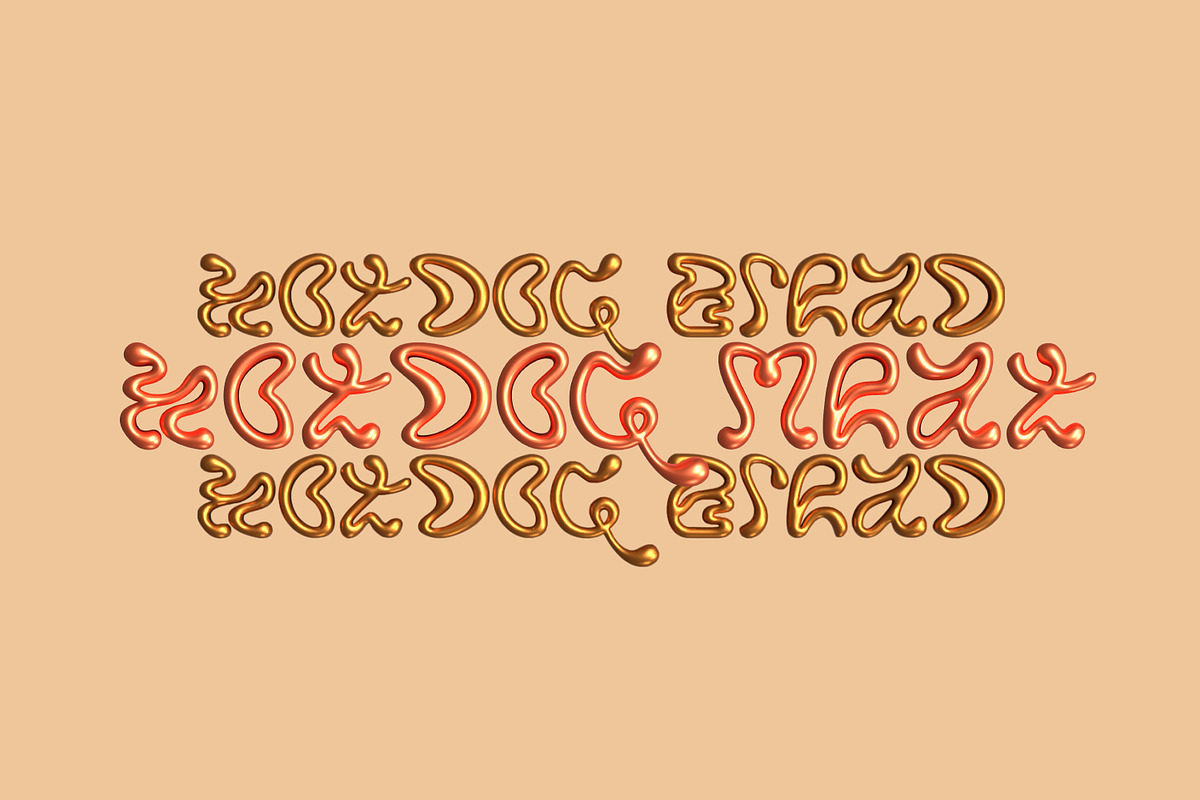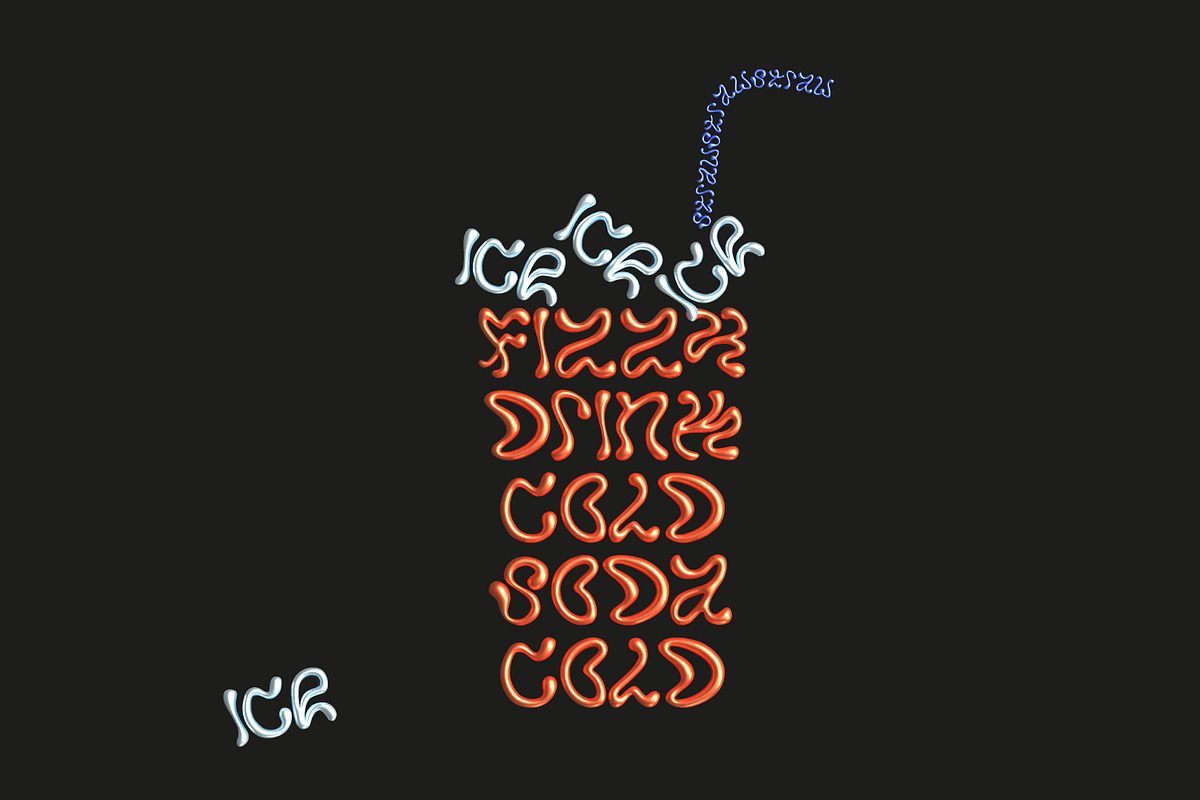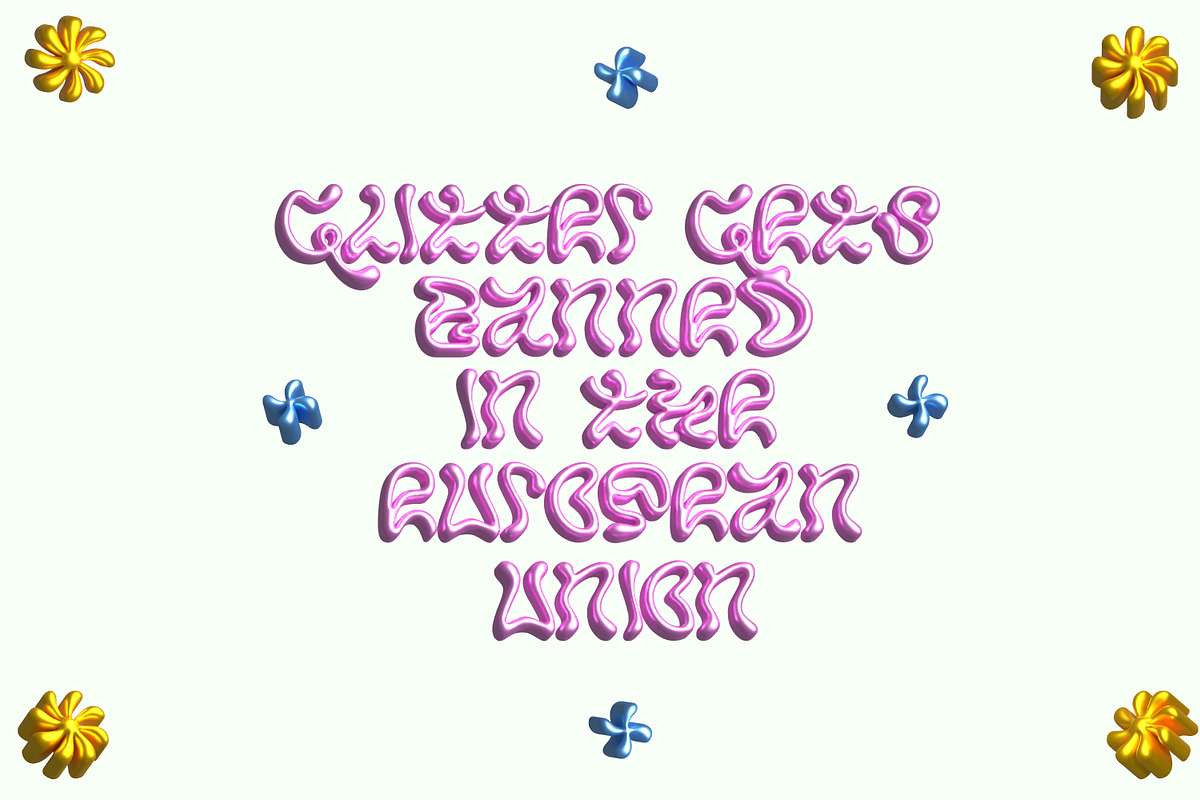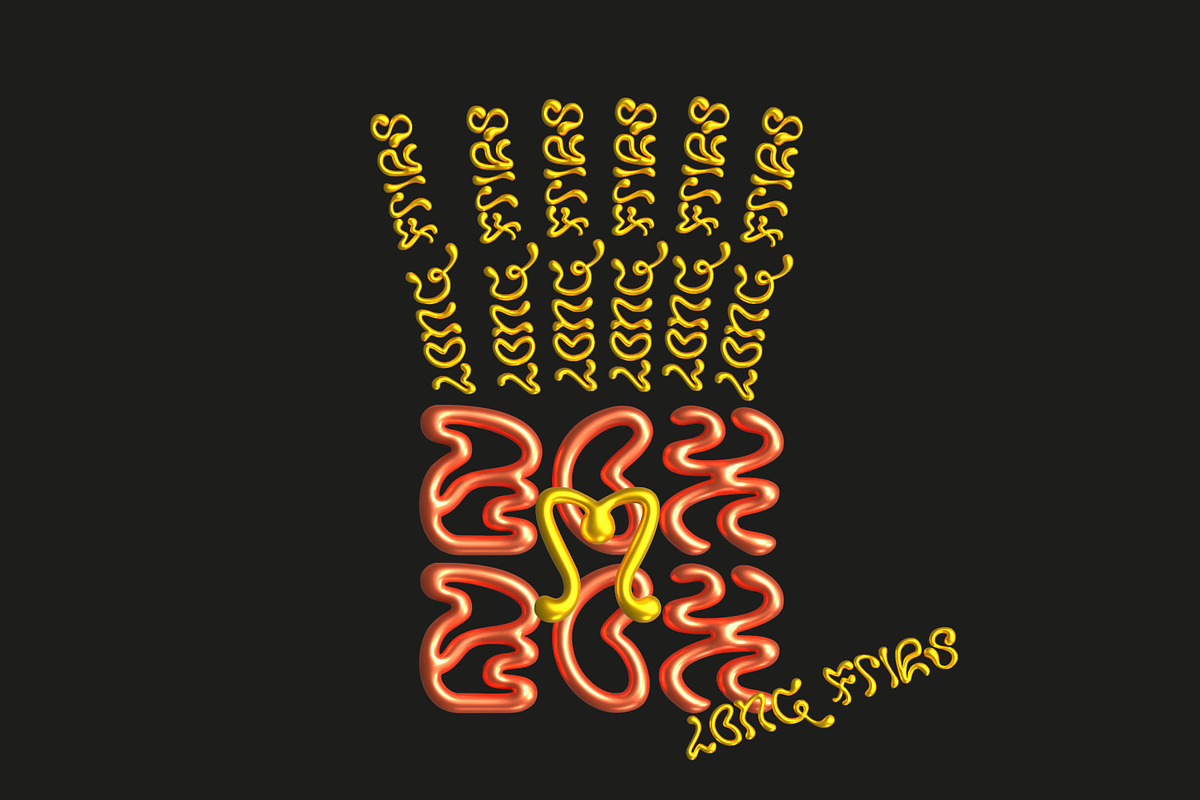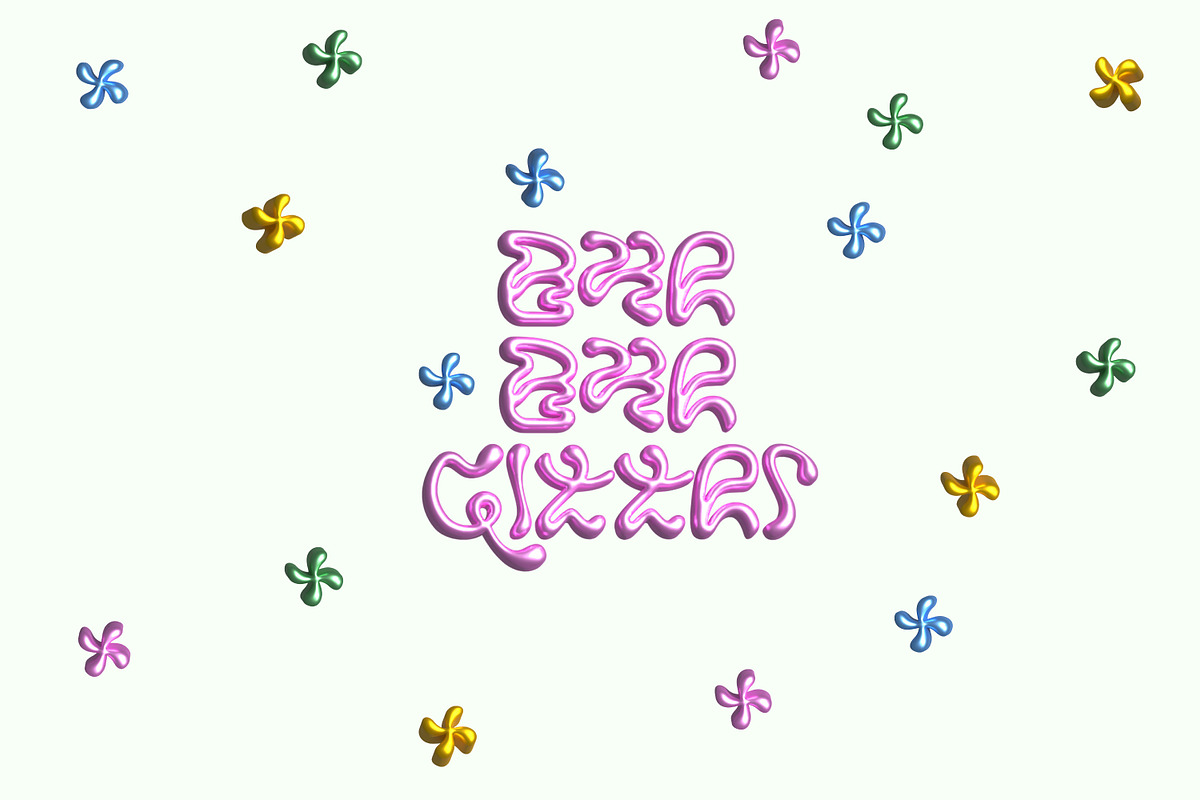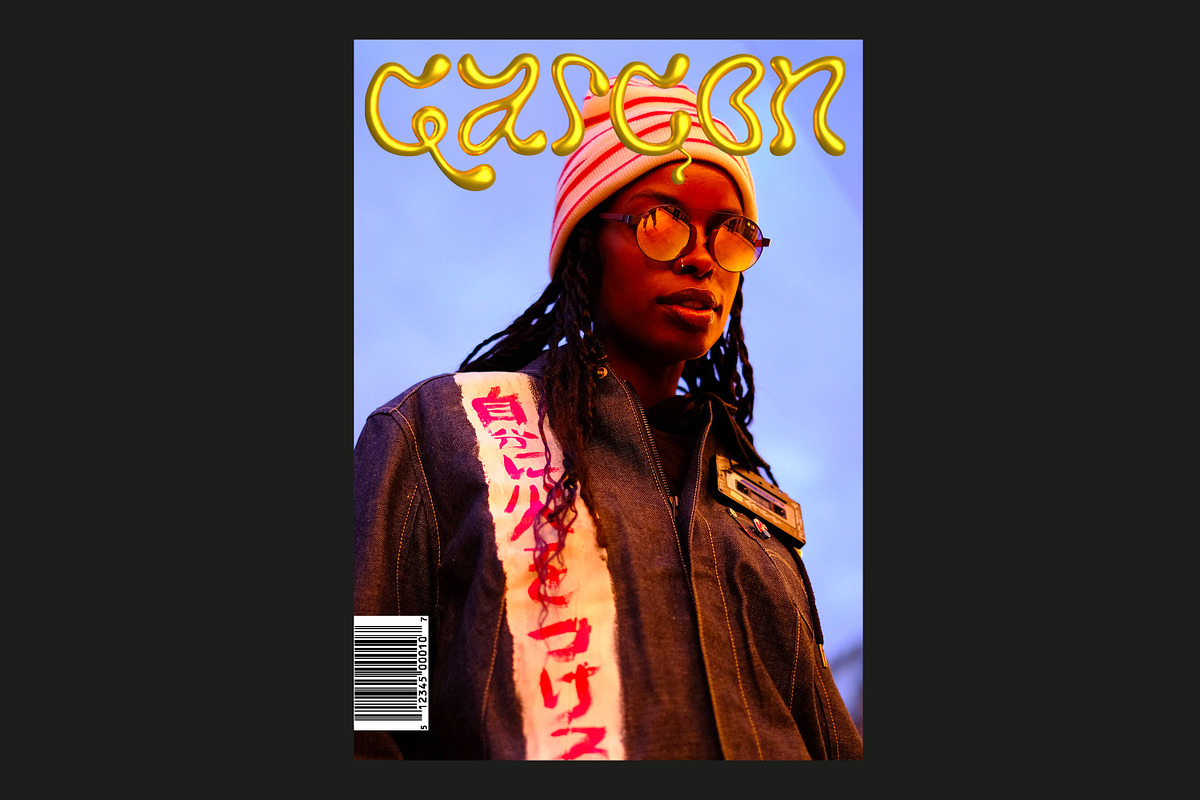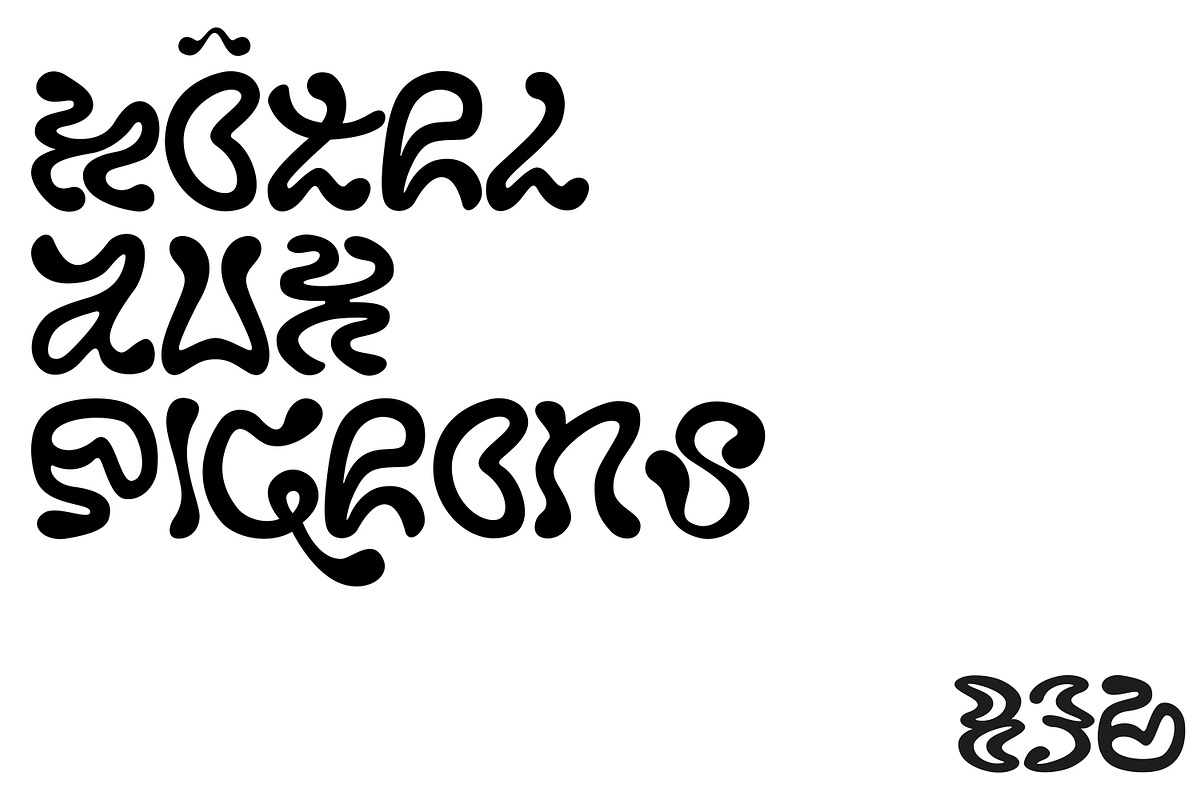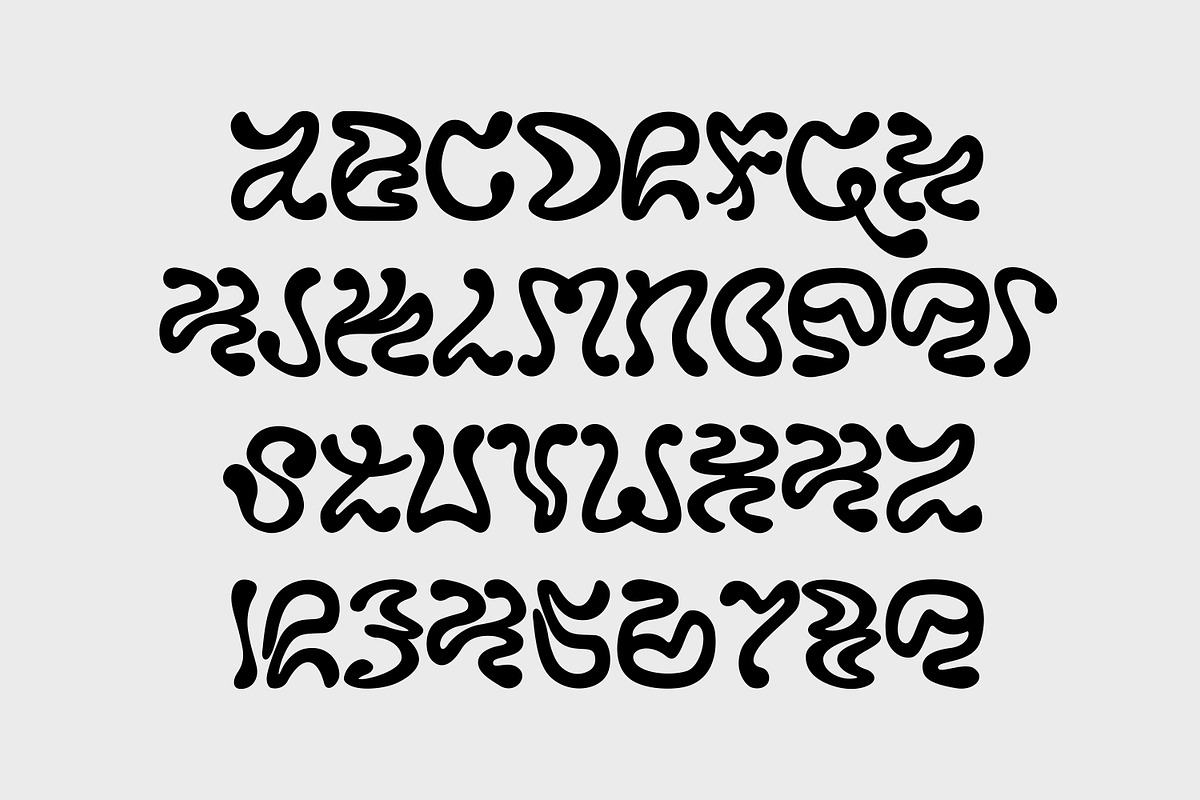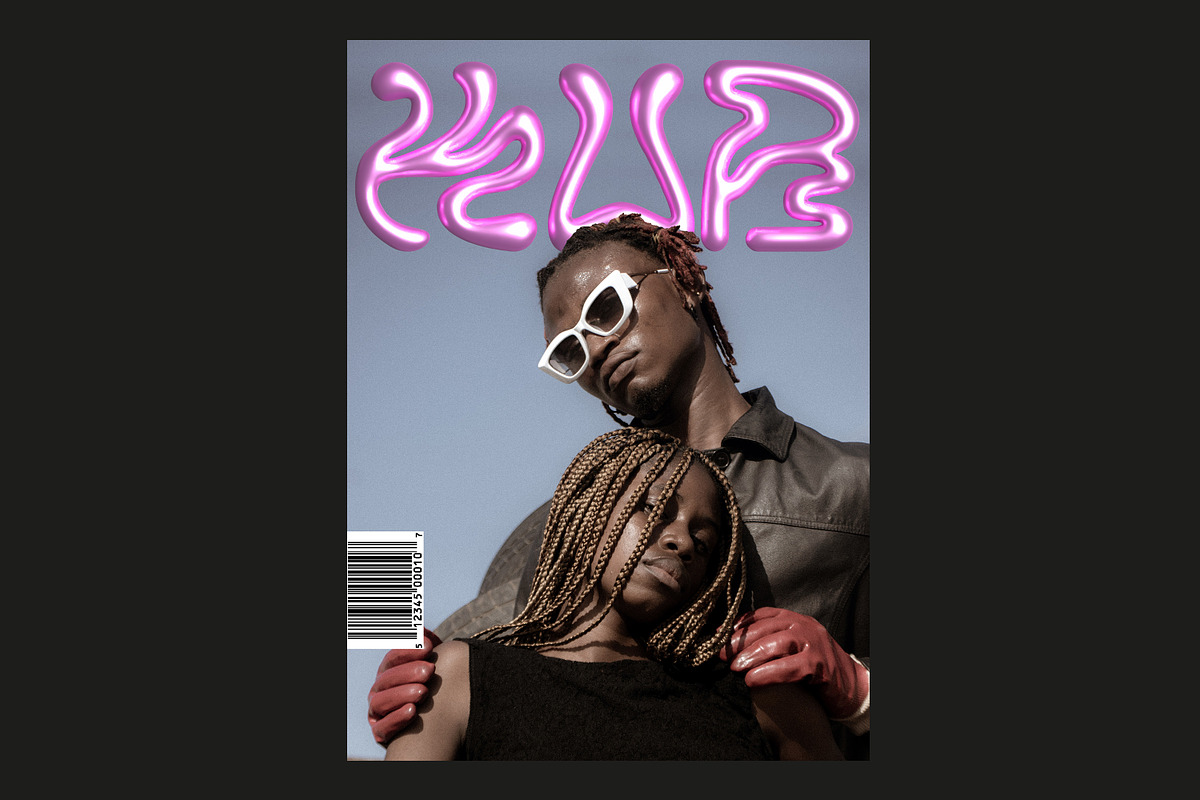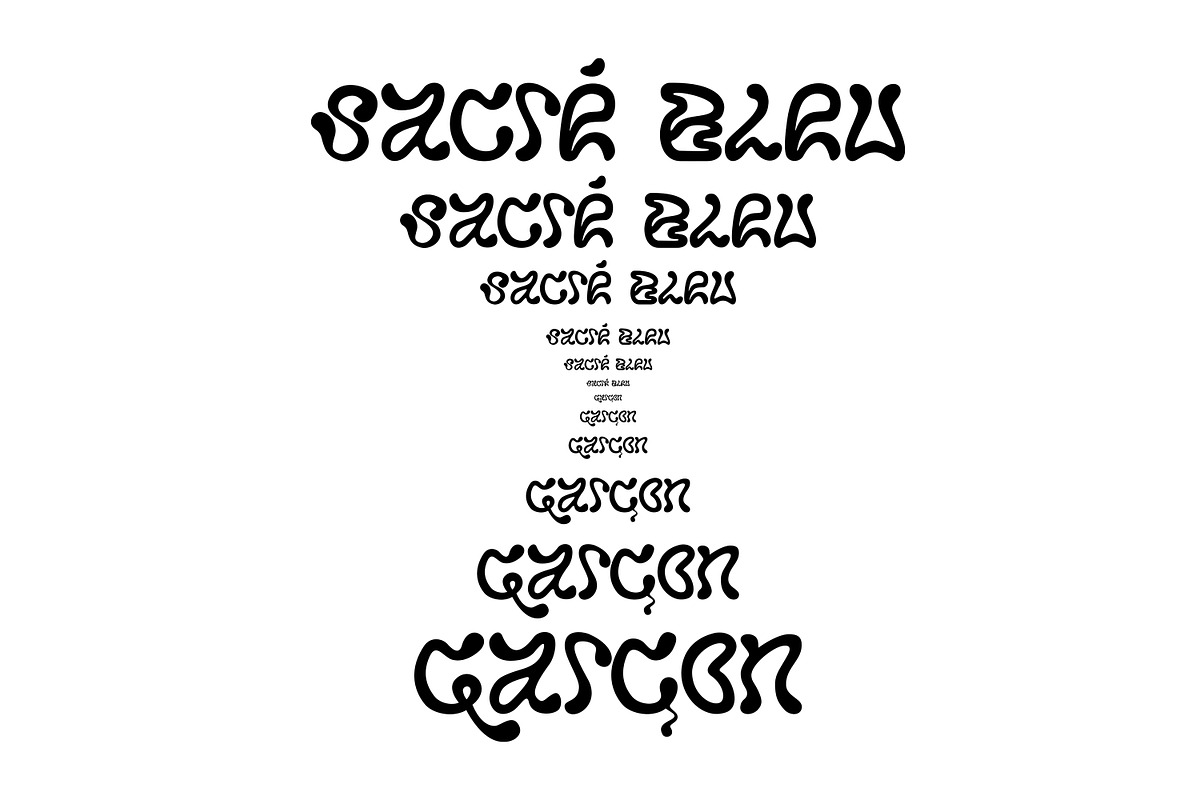
Fluid Typeface by Yarza Twins
Fluid typeface: A typeface that embodies the beautiful ebb and flow of human personalities. Just like our ever-shifting moods and expressions, this typeface seamlessly marries modern design with organic, flowing shapes. Each letter in "Fluid" captures the essence of our dynamic individuality, making it the perfect choice for designs that aim to connect with the diverse, ever-evolving nature of human emotions. "Fluid" isn't just a typeface; it's a visual representation of the intricate dance of personalities. It's the ideal choice for projects that seek to resonate with people on a deep, emotional level. Immerse yourself in the world of "Fluid" and witness your designs come to life with the rhythm and grace of human fluidity.